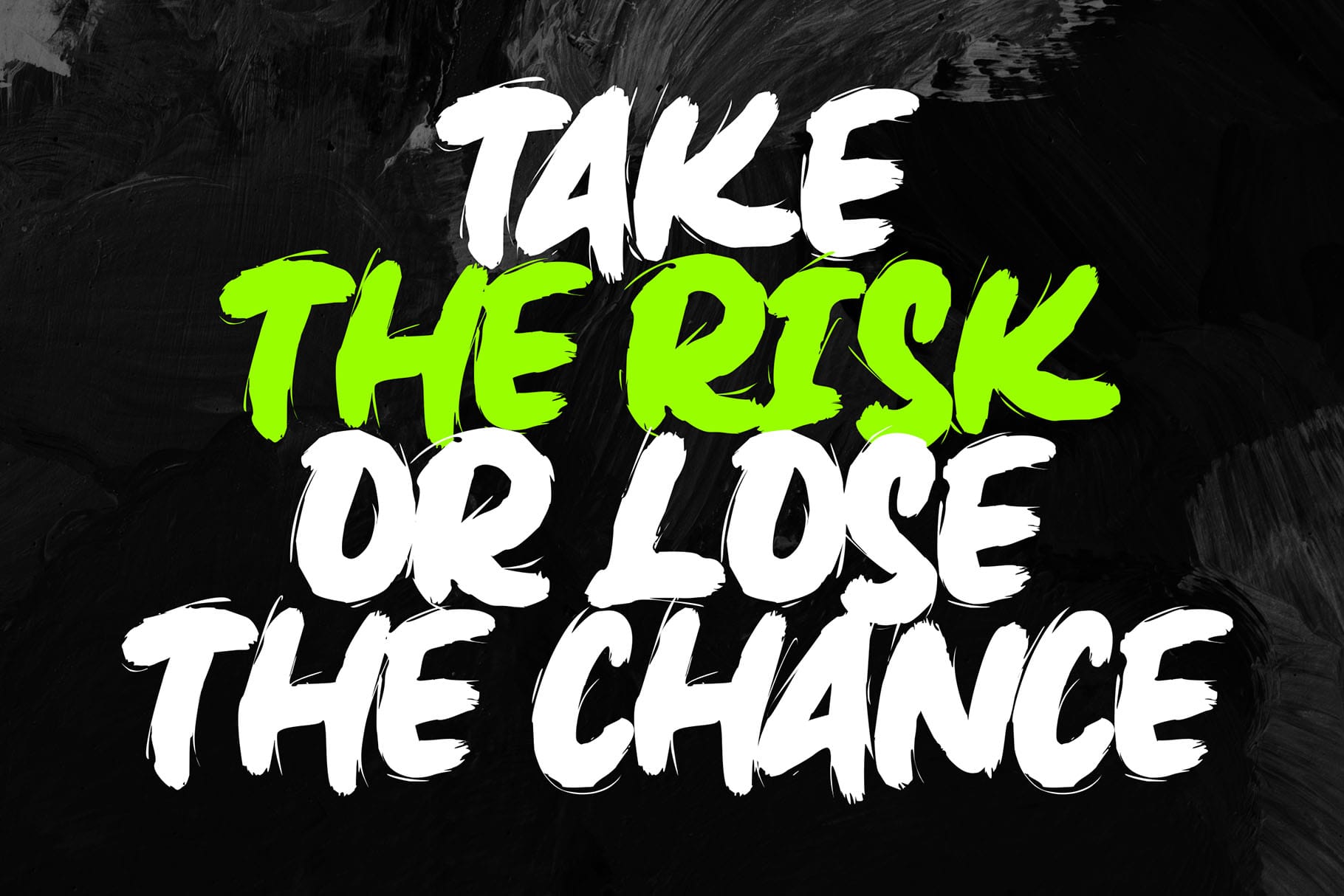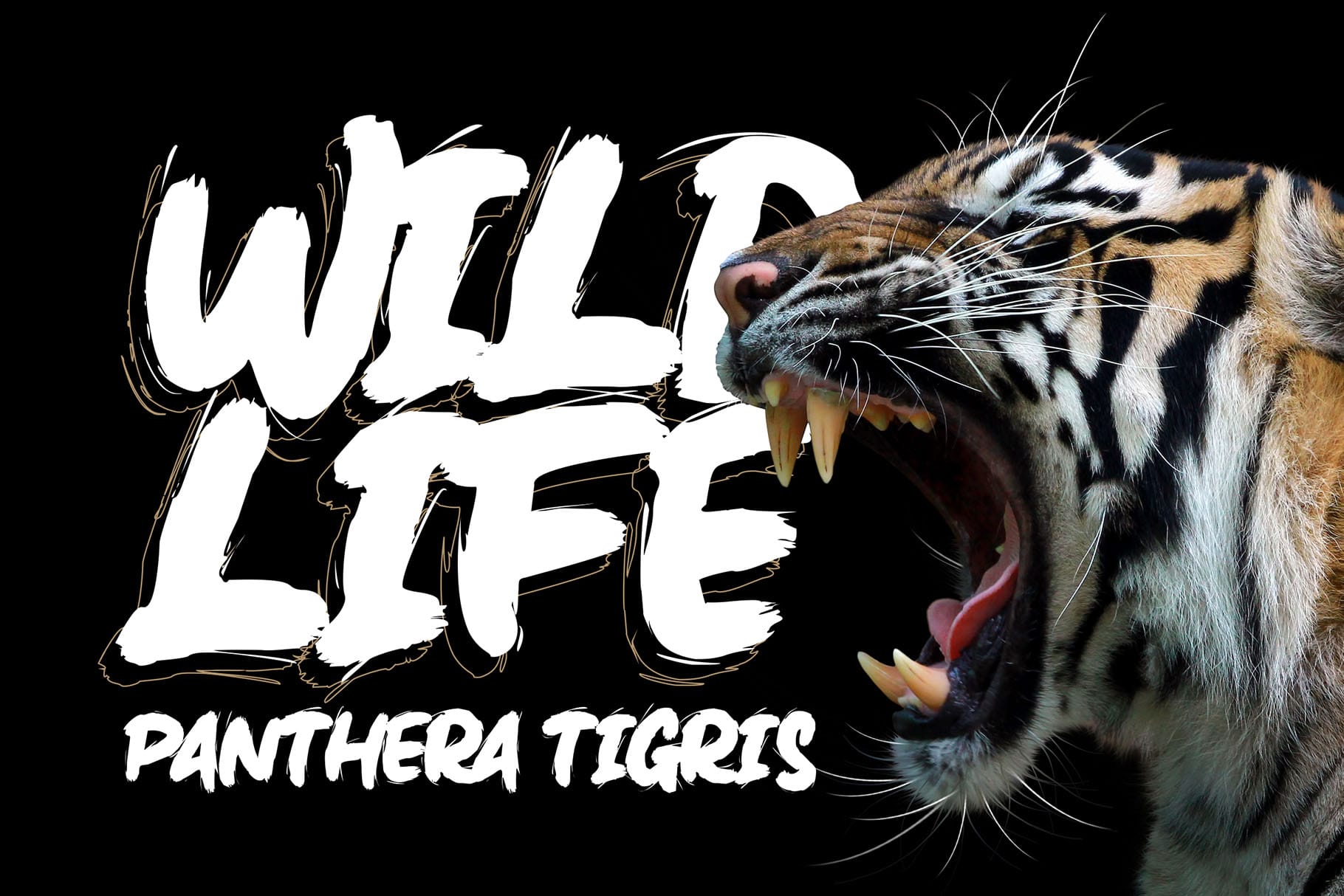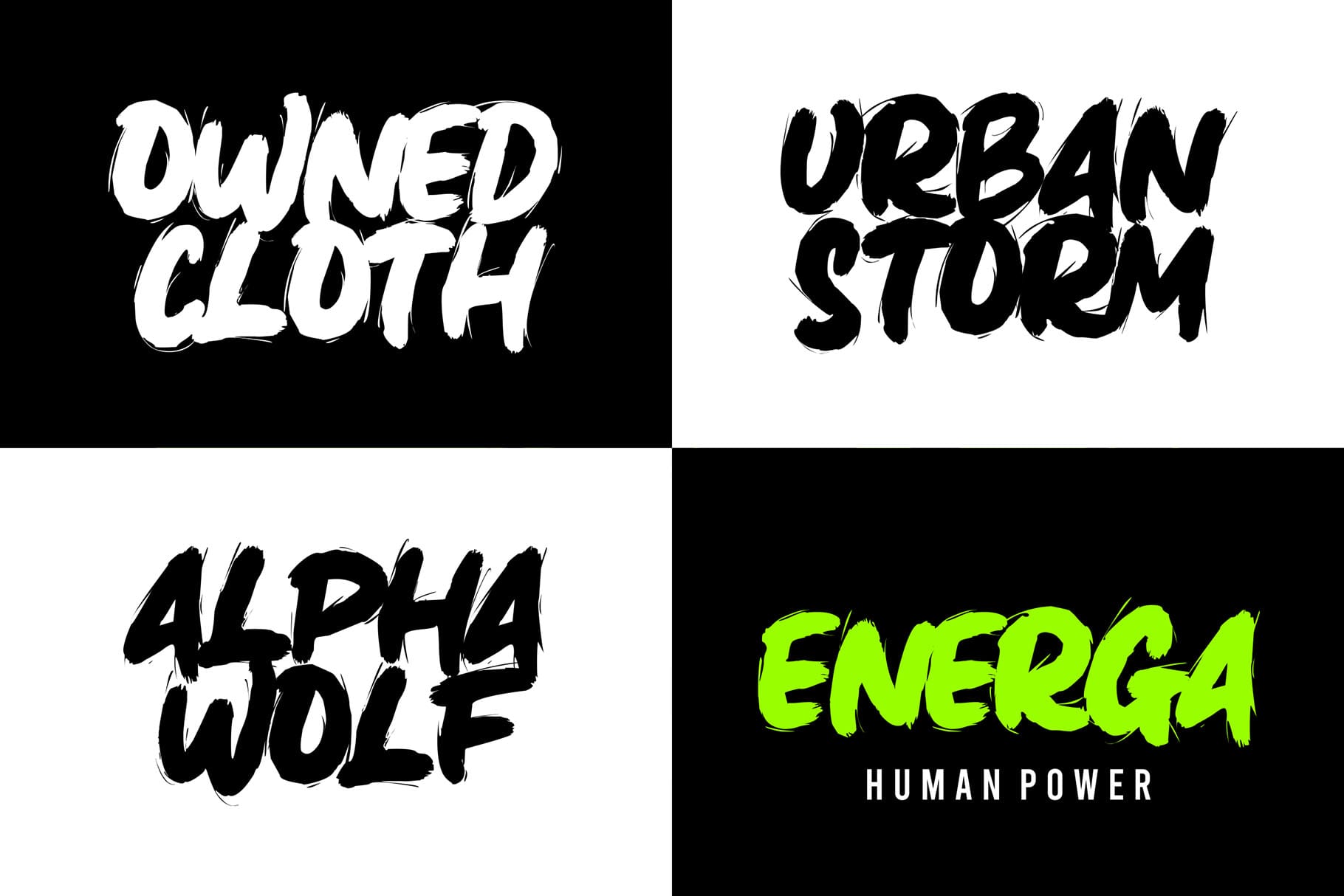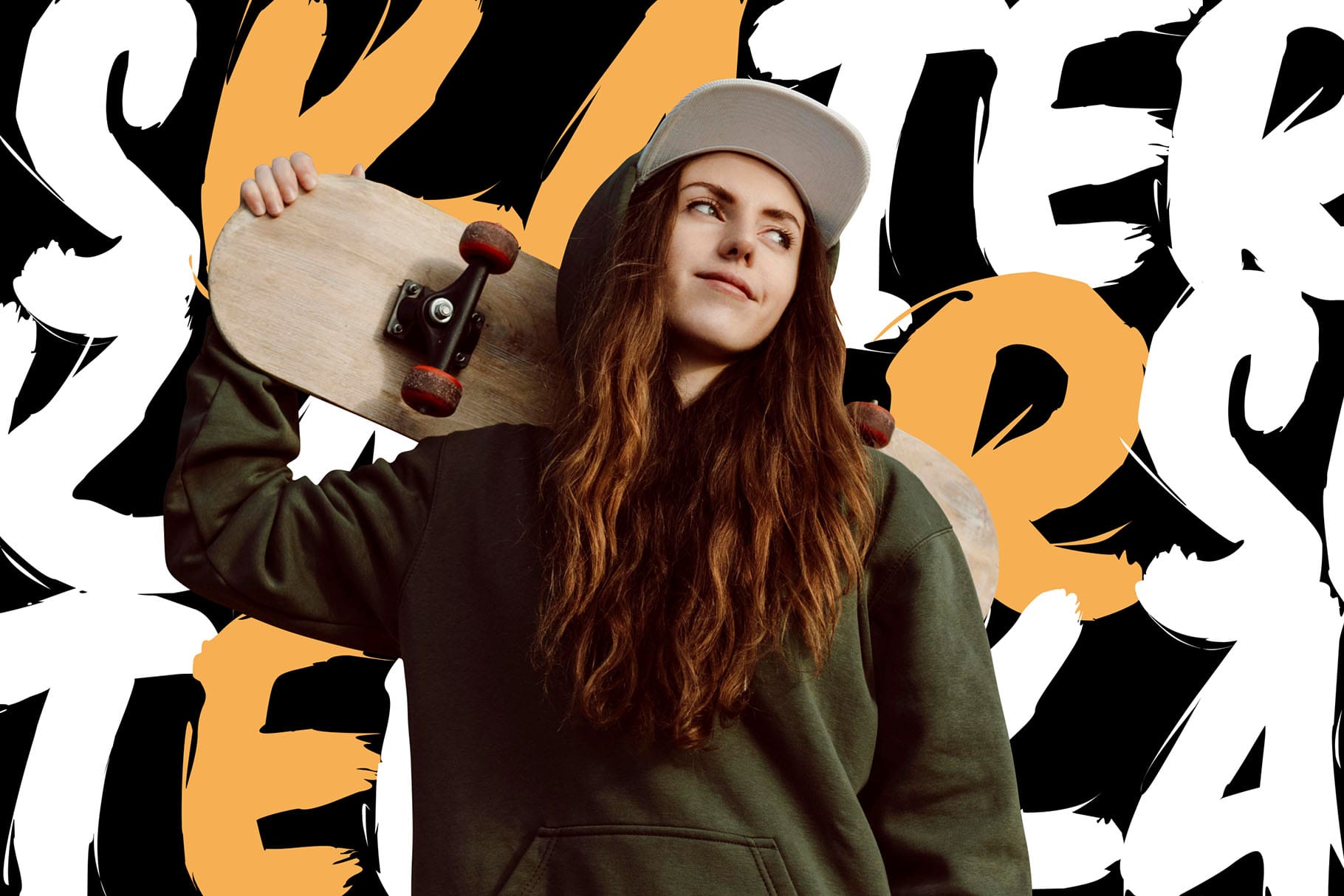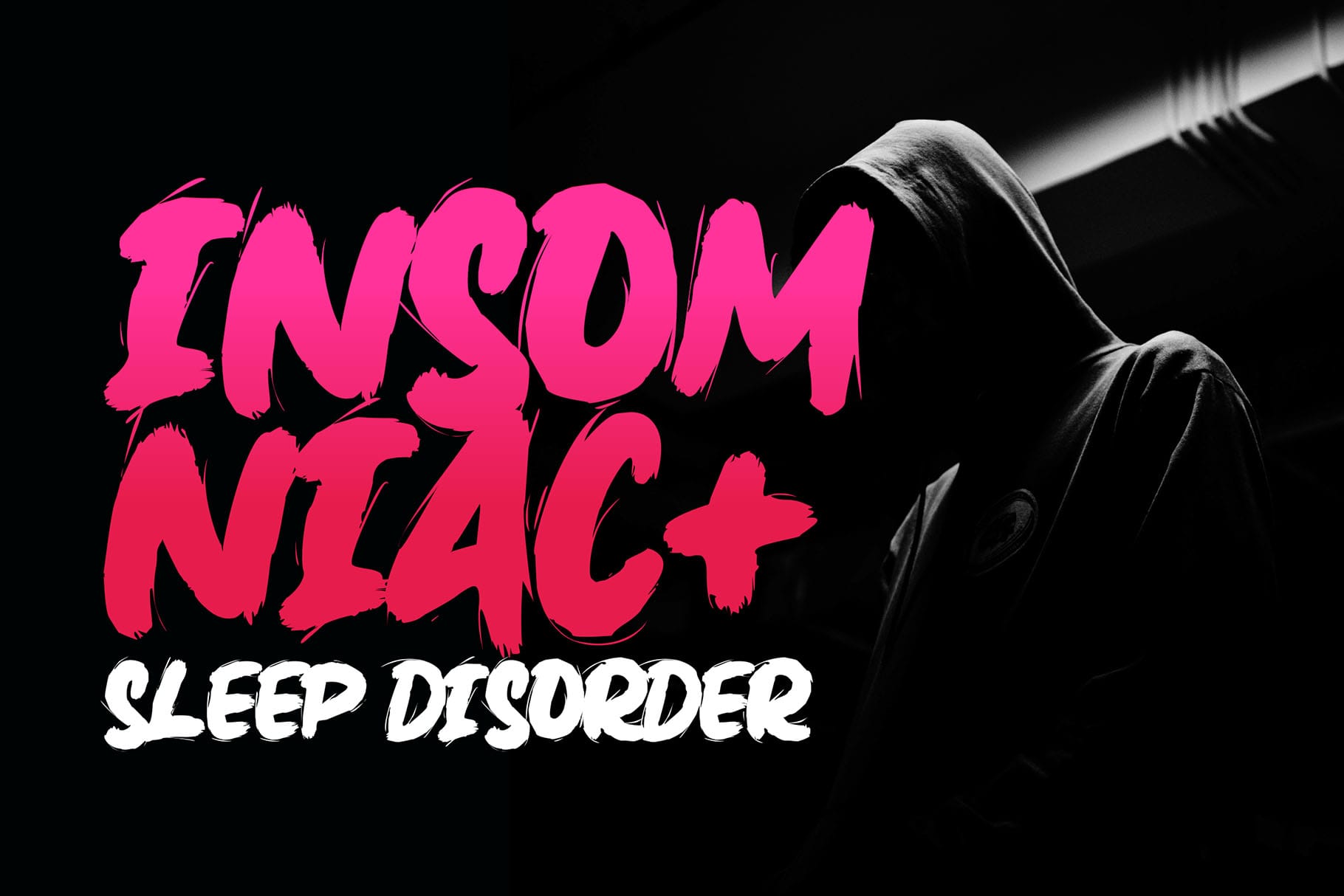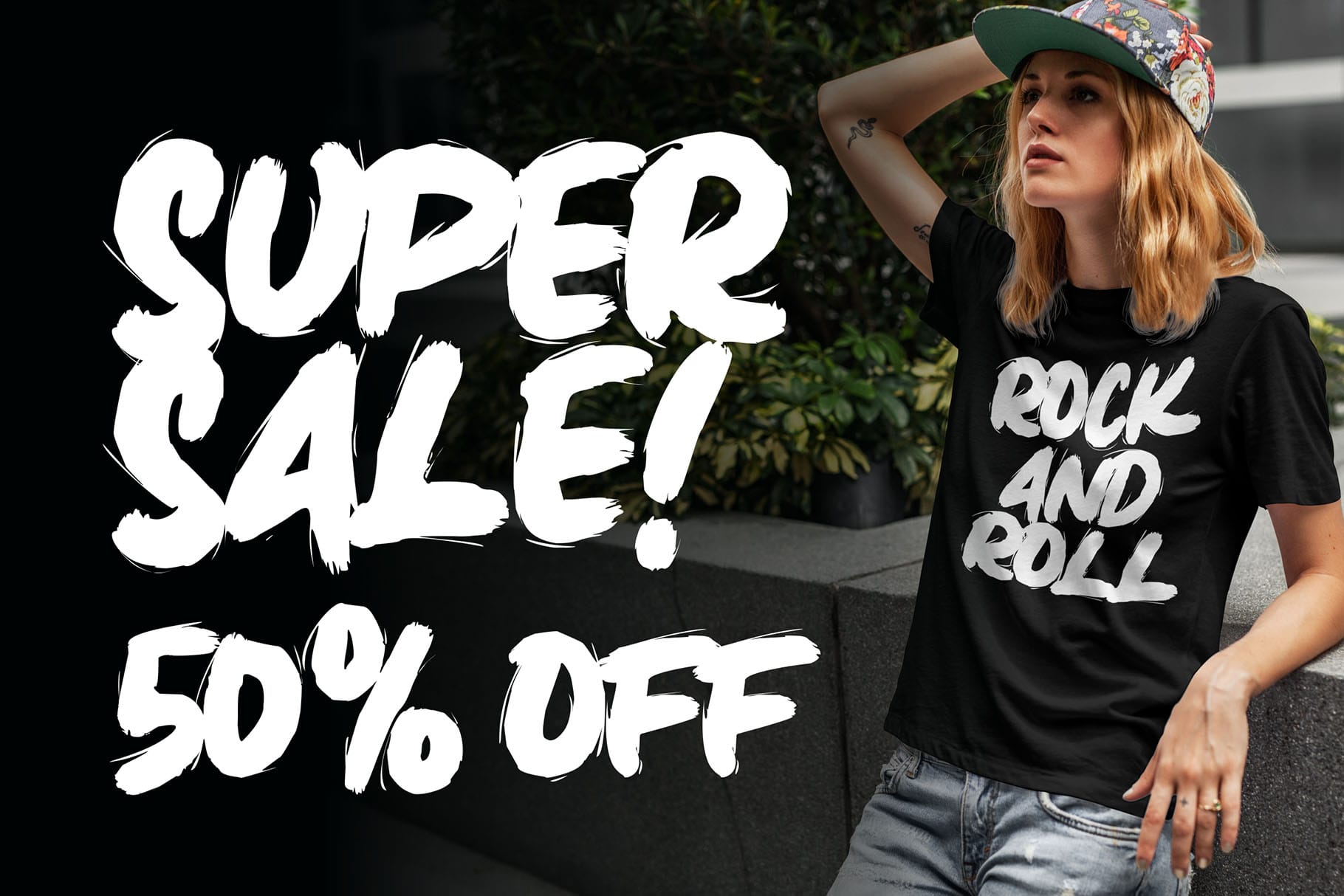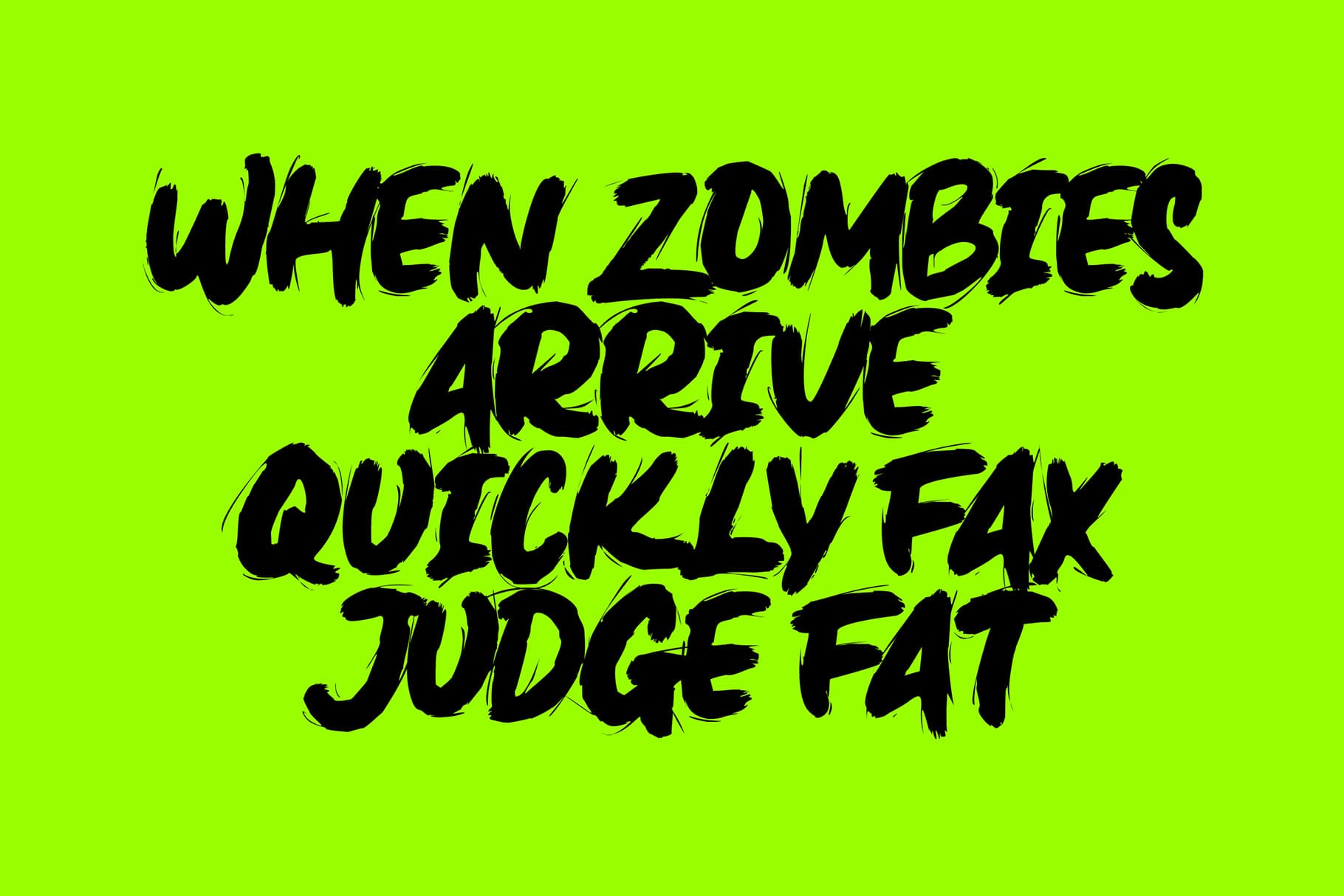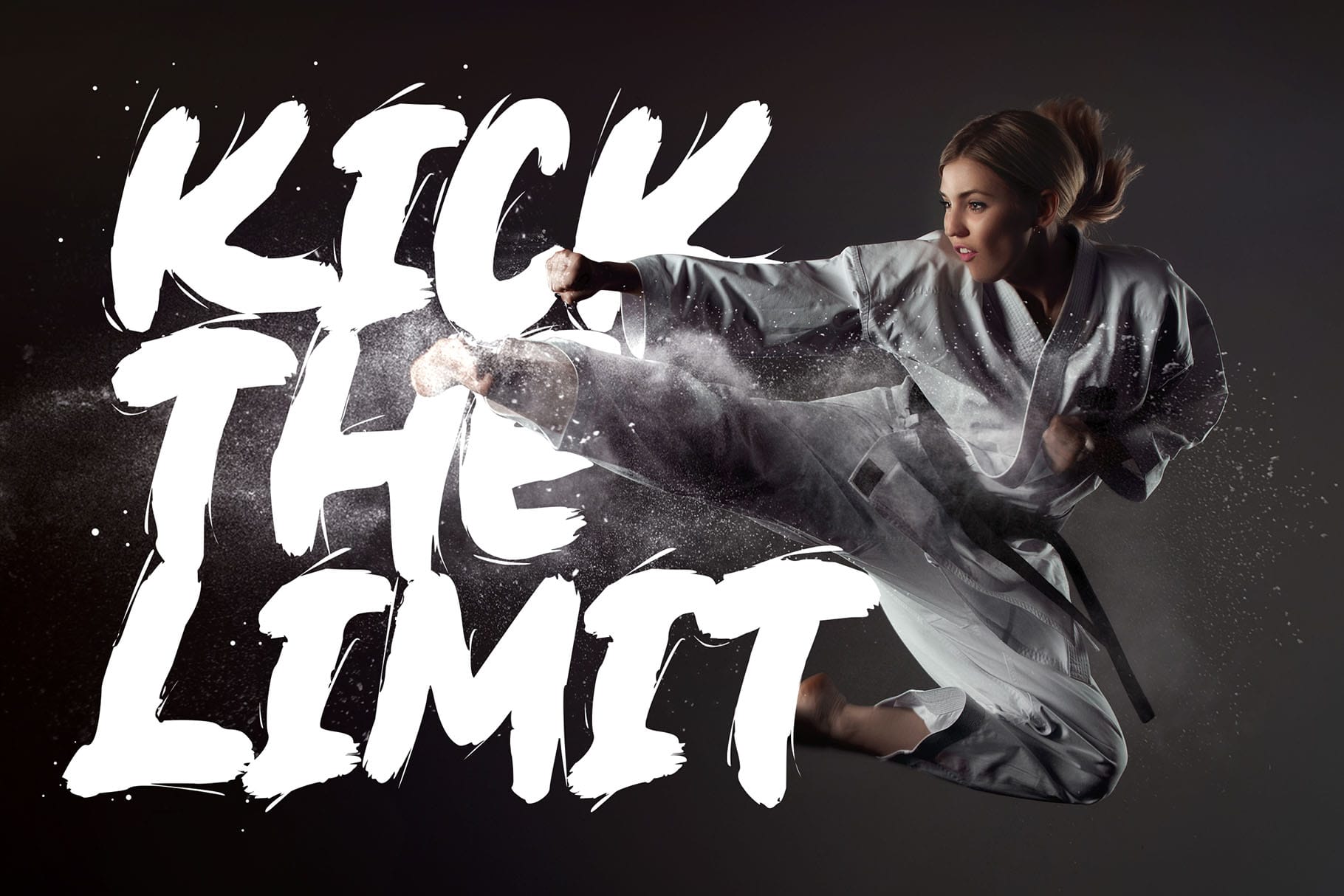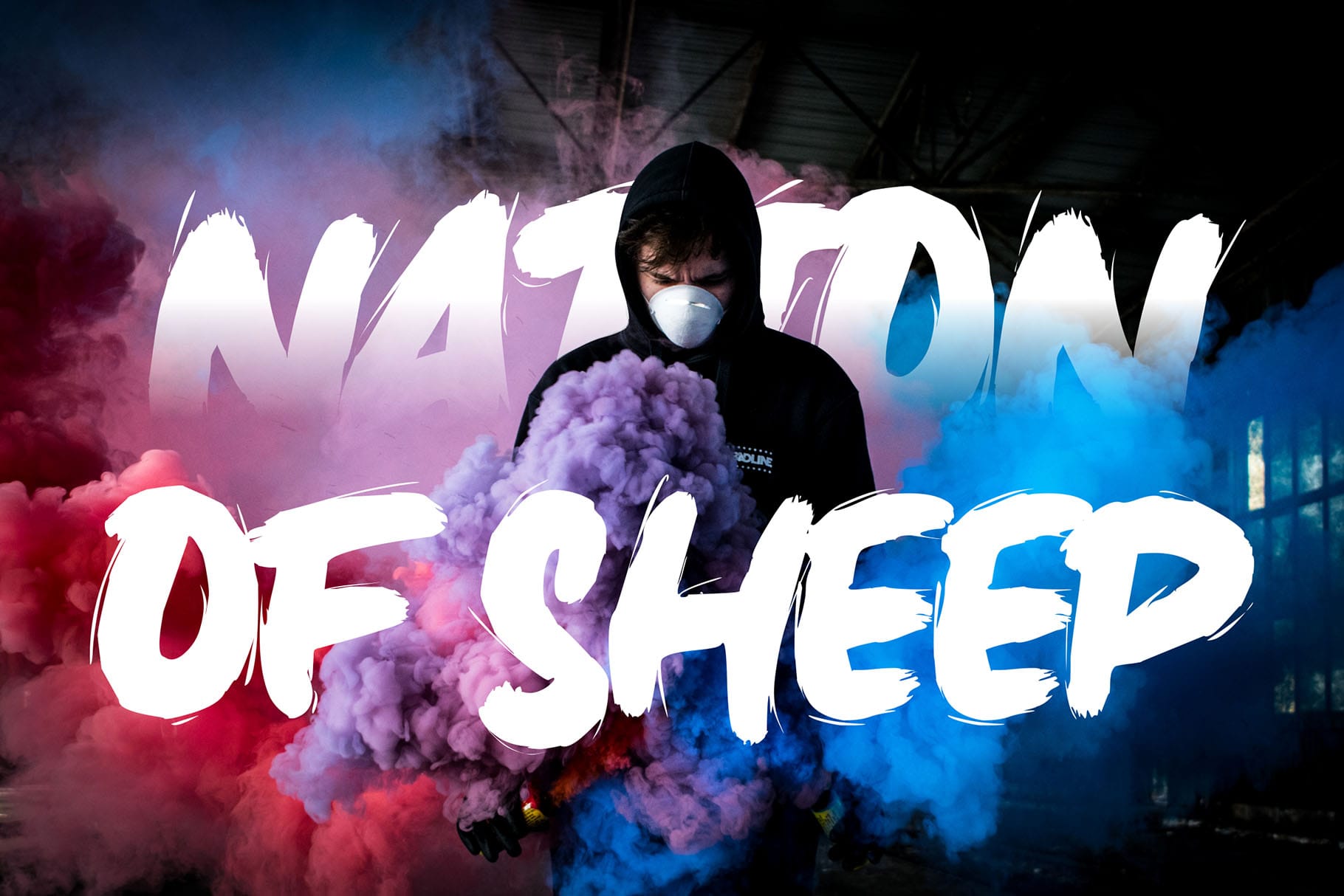
Zembrush
Zembrush is natural and strong hand-drawn brush font that combines attractive curves with a fresh urban edge; delivering a stylish brush font that is guaranteed to add an eye-catching appeal to your logo designs, brand imagery, handwritten quotes, product packaging, merchandise, social media post, or website font.
• Uppercase
• Number and Punctuation
• Detailed Natural Brush
• Versatile for branding, headline, or printing product